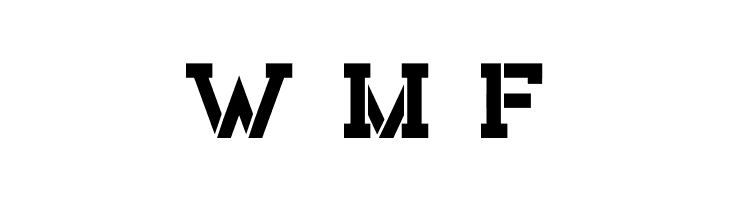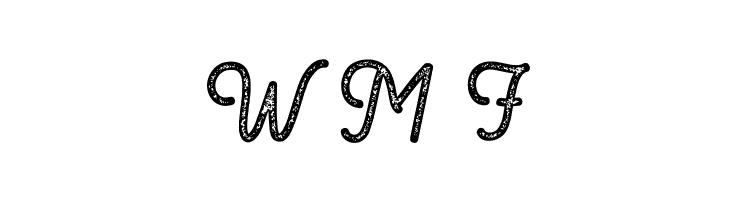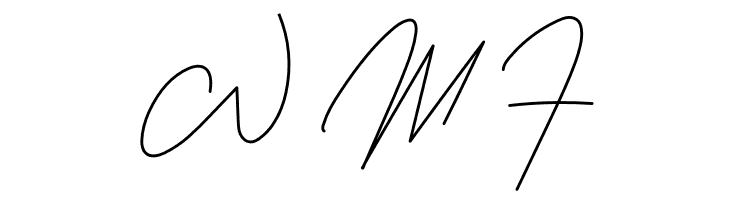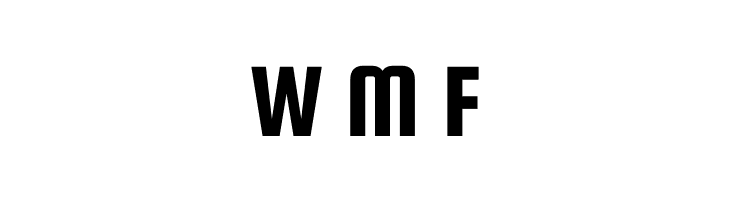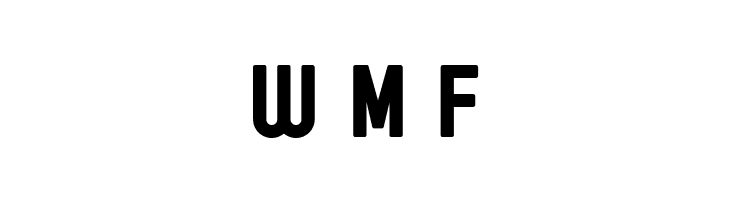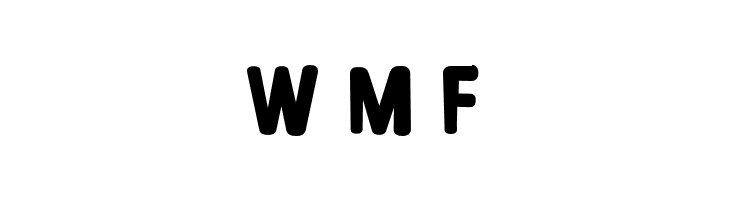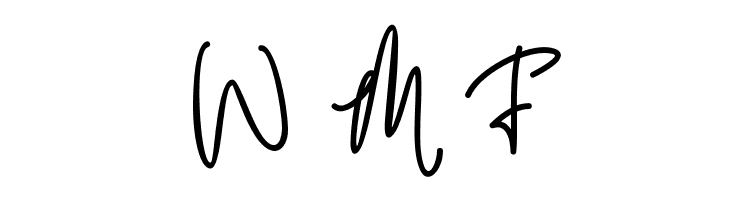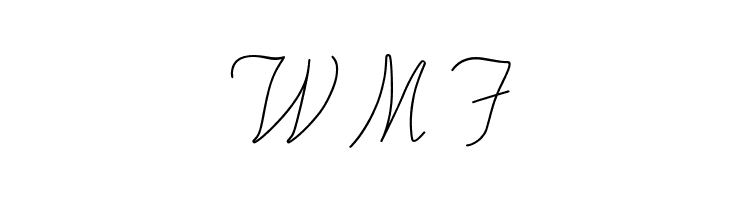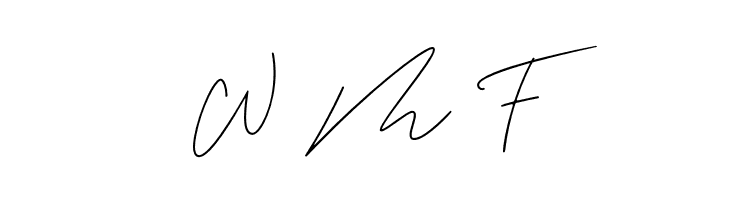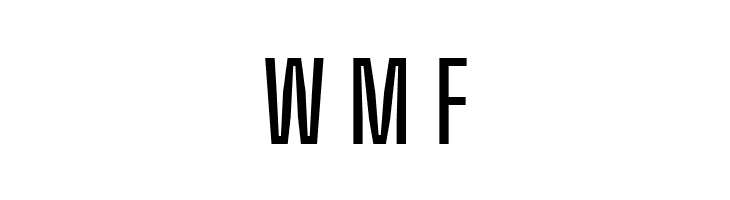
A bold, geometric font with a modern and structured design.
A modern, elegant script font with flowing, handwritten characteristics.
A bold, stencil-style font with geometric precision and industrial appeal.
A textured script font with a vintage, stamped appearance.
A sophisticated, fluid script font with elegant, elongated strokes.
A bold, rounded font with a playful and approachable style.
A thin, semi-condensed, modern sans-serif with clean lines and high legibility.
A geometric, modern font designed for the Shavian alphabet with a focus on clarity and uniformity.
A bold, modern font with strong, clear numerals and special characters.
A bold, modern font with thick strokes and geometric shapes for high legibility.
A bold, extra-condensed font with a modern, geometric style.
Font glyphs are missing; only a few extra light serif punctuation and numbers are shown.
A bold, modern sans-serif font with clean lines and uniform width.
A bold, condensed font with strong, clear characters.
A bold, modern font with high readability and balanced character spacing.
A clean and readable font with consistent stroke width and modern design.
A flowing, cursive font with elegant loops and a handwritten appearance.
A lively and expressive handwritten font with fluid strokes.
A fluid and elegant script font with a relaxed, tropical vibe.
A lively script font with fluid, continuous strokes and a personal touch.
A thin, modern font with clean lines and uniform spacing.
A bold, modern typeface with tall, narrow letterforms and a geometric structure.